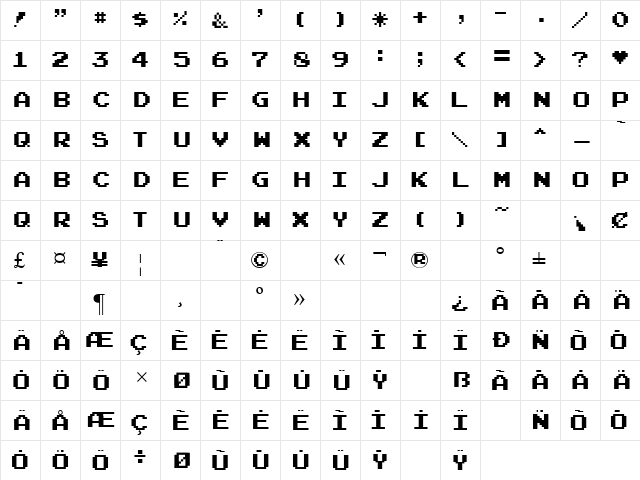
Joystix Regular
| Copyright | freeware by Ray Larabie 1996 - distribute freely........................ Manually input. Ref. mostly PAC-MAN. Most other games have a different Y and W. !, & ? differ in early games. |
Design Context for Joystix Typeface
Joystix is a composed and adaptable typeface that performs quietly and consistently across a wide range of design contexts.